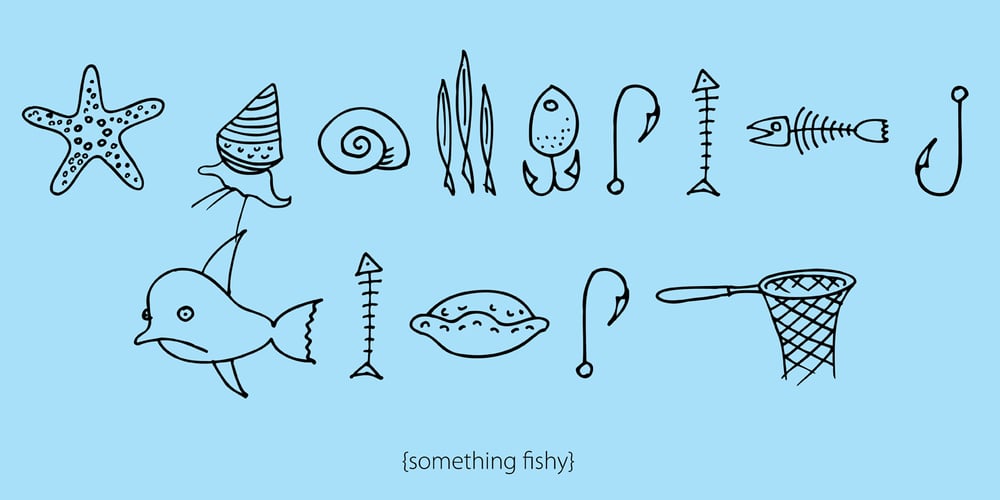
Something Fishy
Something Fishy font
Something Fishy Font Family was designed by published by Kate Brankin. Something Fishy contains 1 styles and family package options. A recent walk down memory lane through old college sketchbooks revealed a collection of caricature fish doodles. Then the sketches were discovered by my son who, being a marine life enthusiast, promptly demanded that I draw more fish. Thus, a collection of 71 fish-inspired drawings and bubbly numbers was born. There is even a lemon, since no fish is really complete without one.